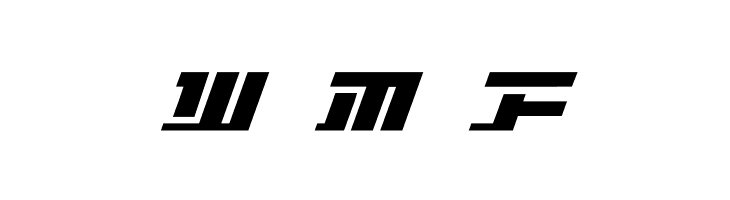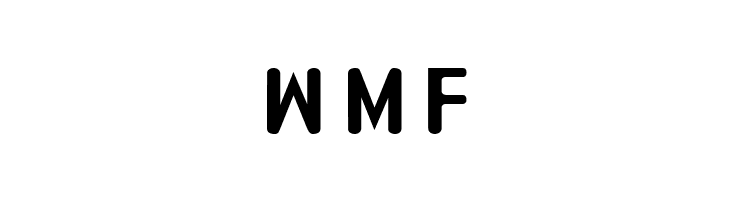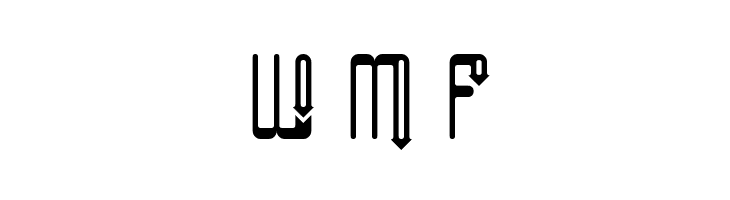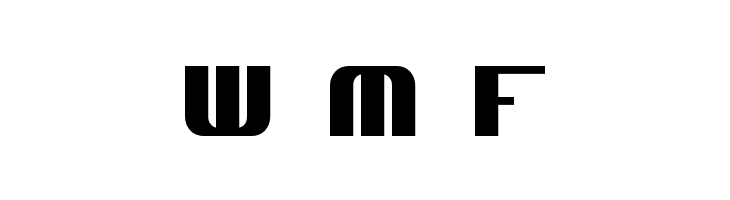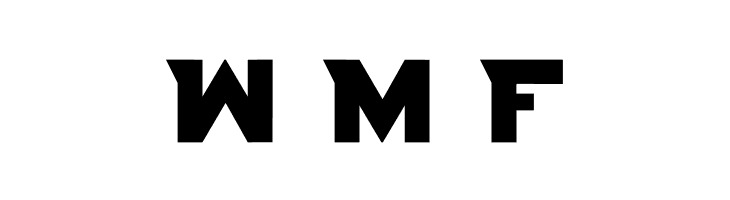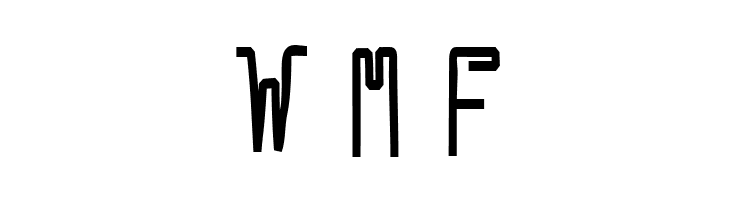
A bold, decorative font with geometric and intricate details.
A bold, geometric font with rounded characters and a modern industrial feel.
A bold, futuristic font with angular, geometric shapes and a dynamic slant.
A bold, modern font with rounded edges and geometric structure.
A bold, high-contrast font with elongated, geometric characters.
A modern, geometric font with bold lines and tech-inspired design.